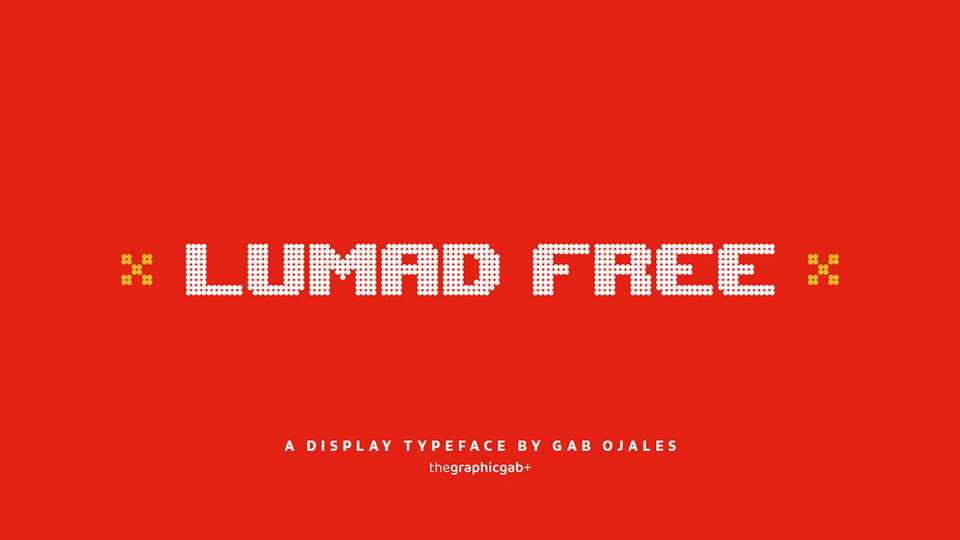
Download Lumad Free font, a unique display typeface that speaks of Bukidnon and its culture. Inspired by the accessories and textiles of the province, Lumad Free features the incredible ‘beadwork’ by Bukidnon artisans.